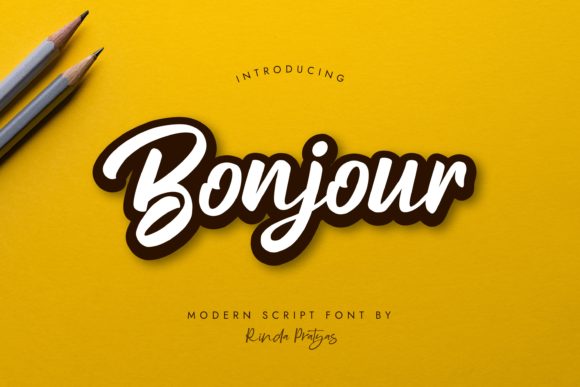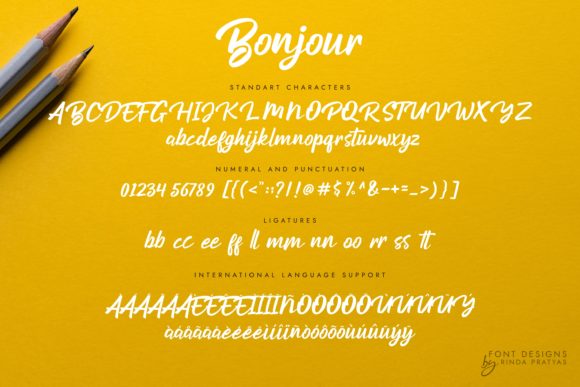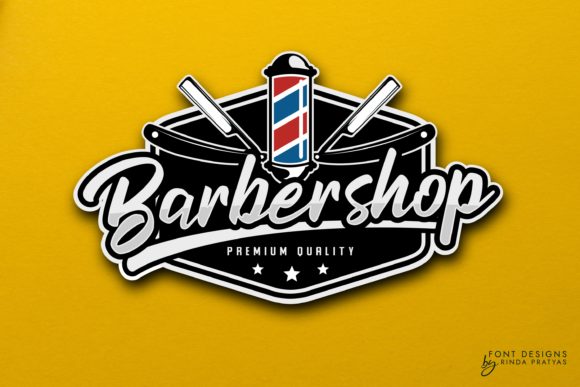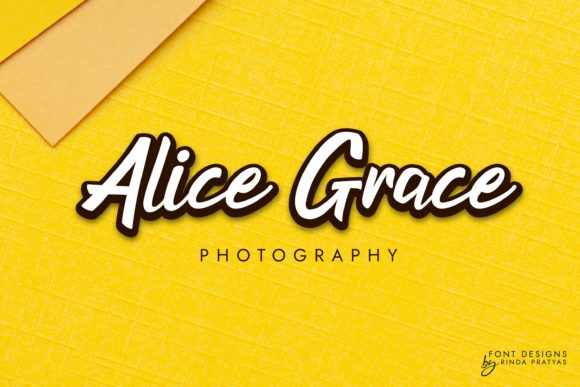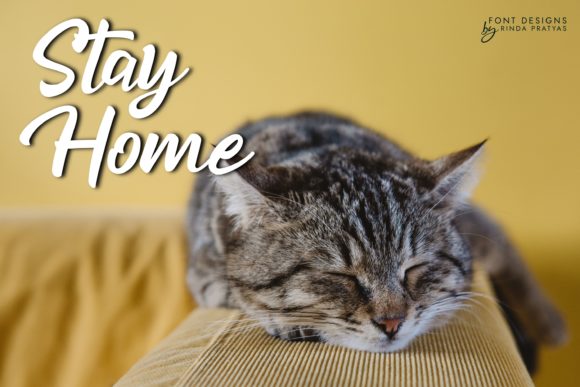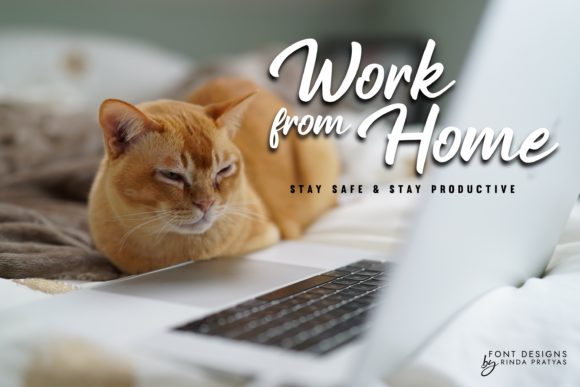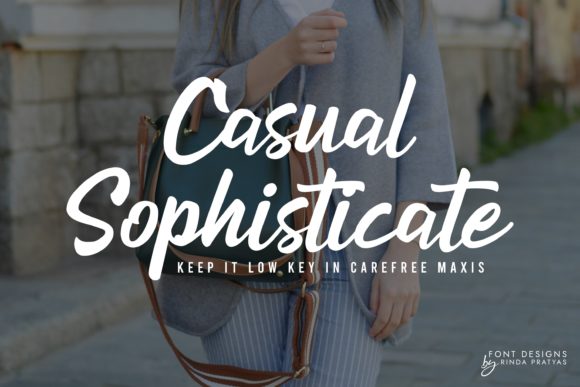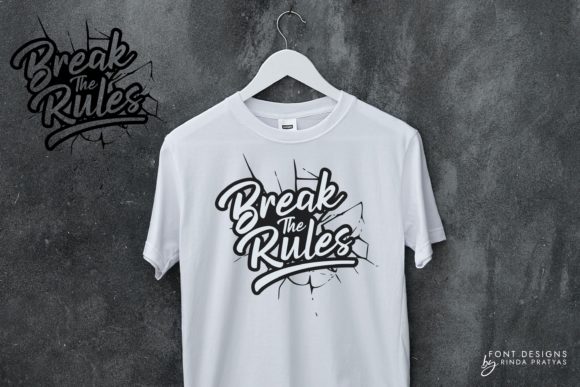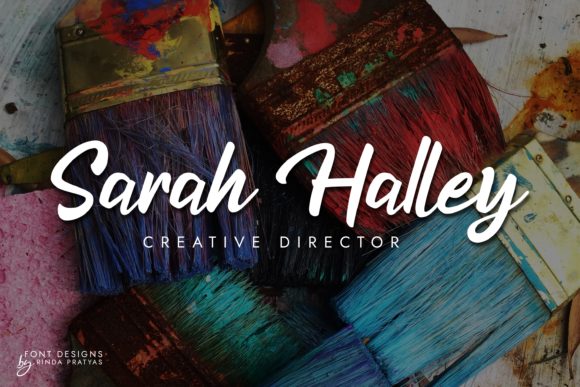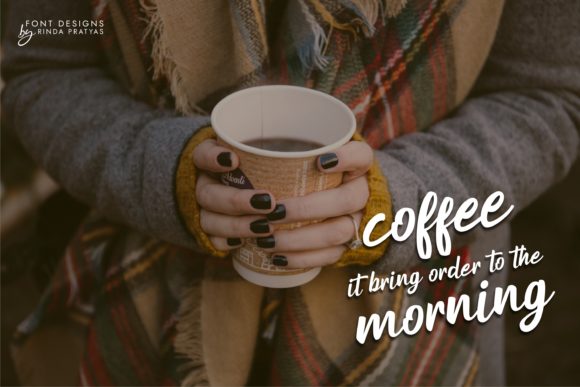
Bonjour Font
About Bonjour Font
Bonjour results out of a stunning pairing of a brush pen and pencil. It will elevate a wide range of design projects to the highest level, be it branding, headings, wedding designs, invitations, signatures, logos, labels, and much more!